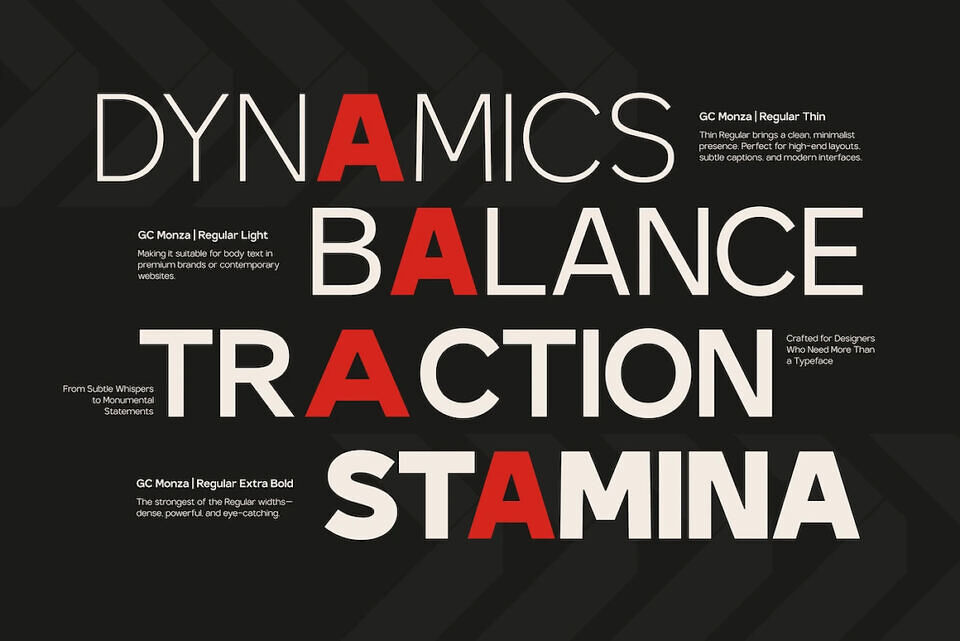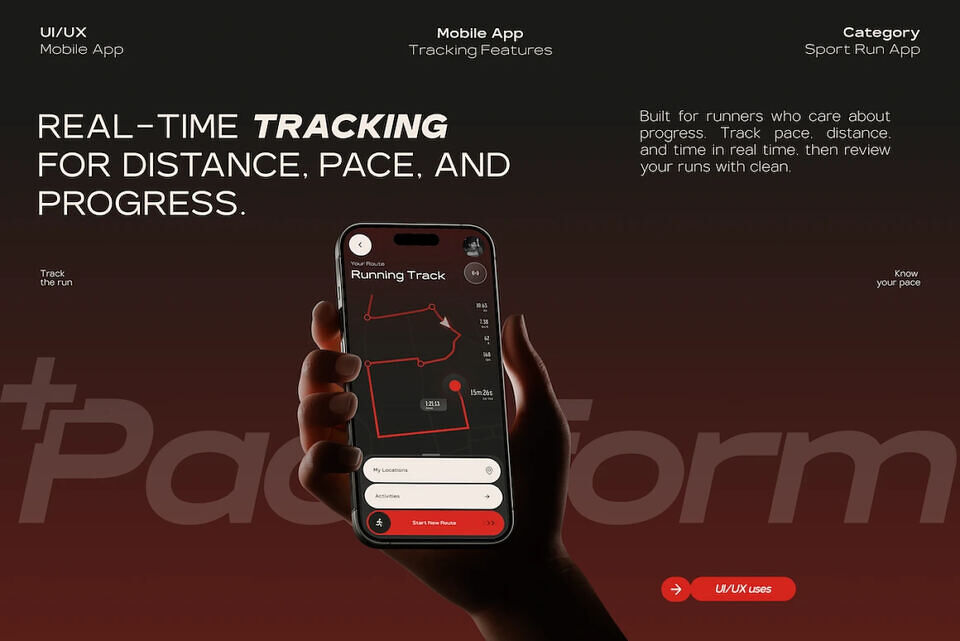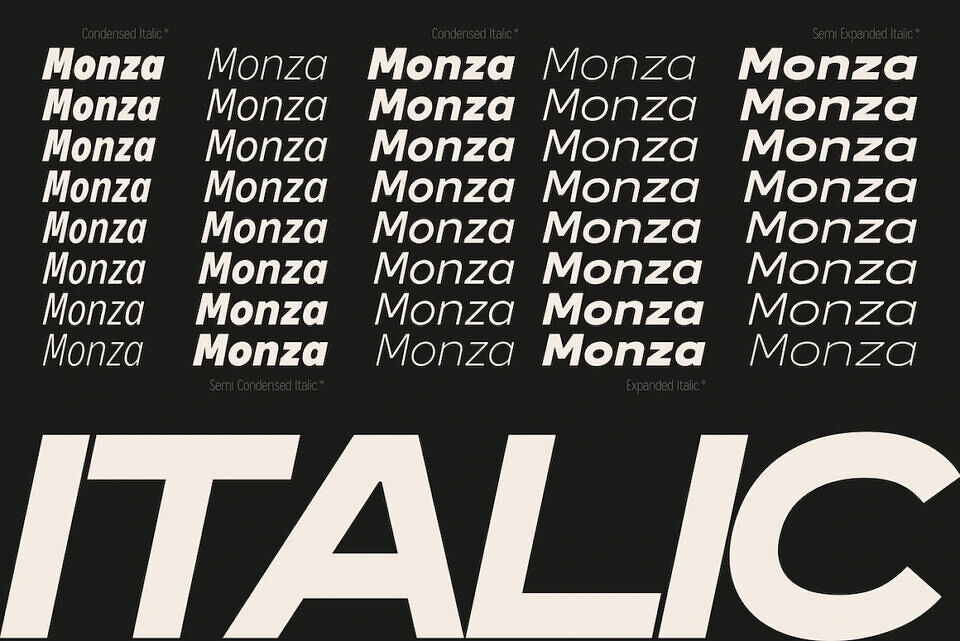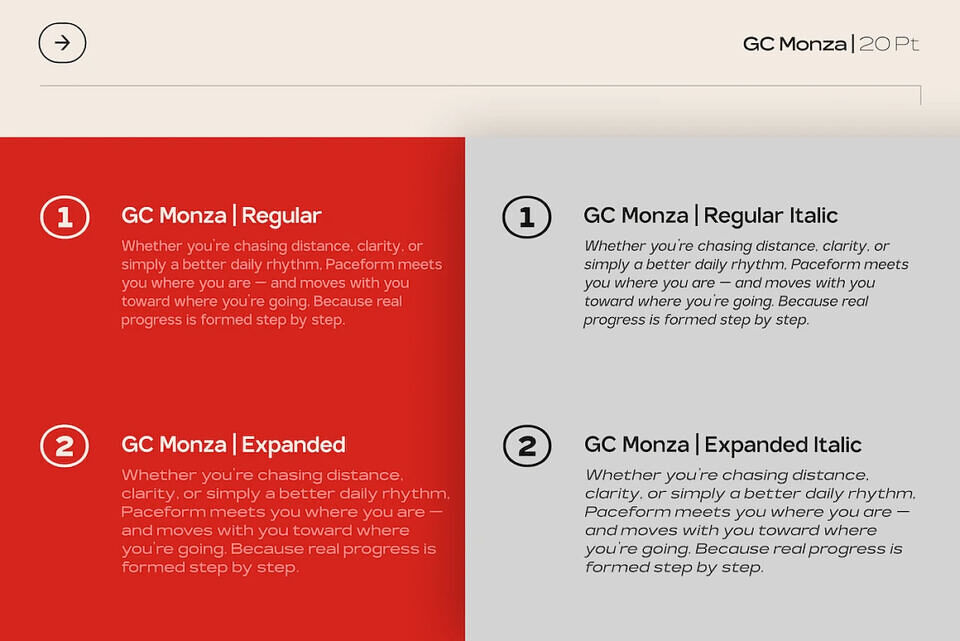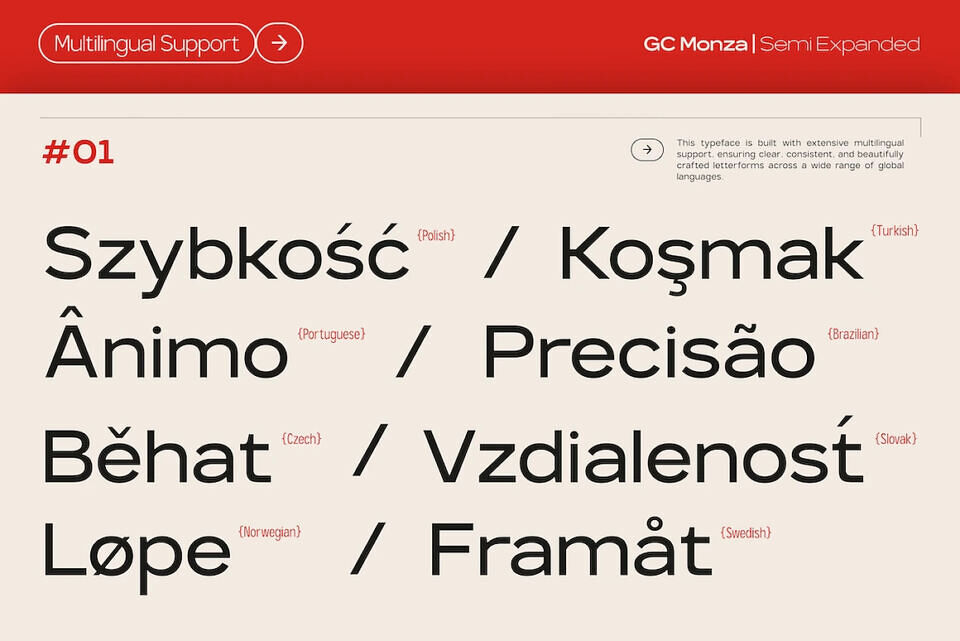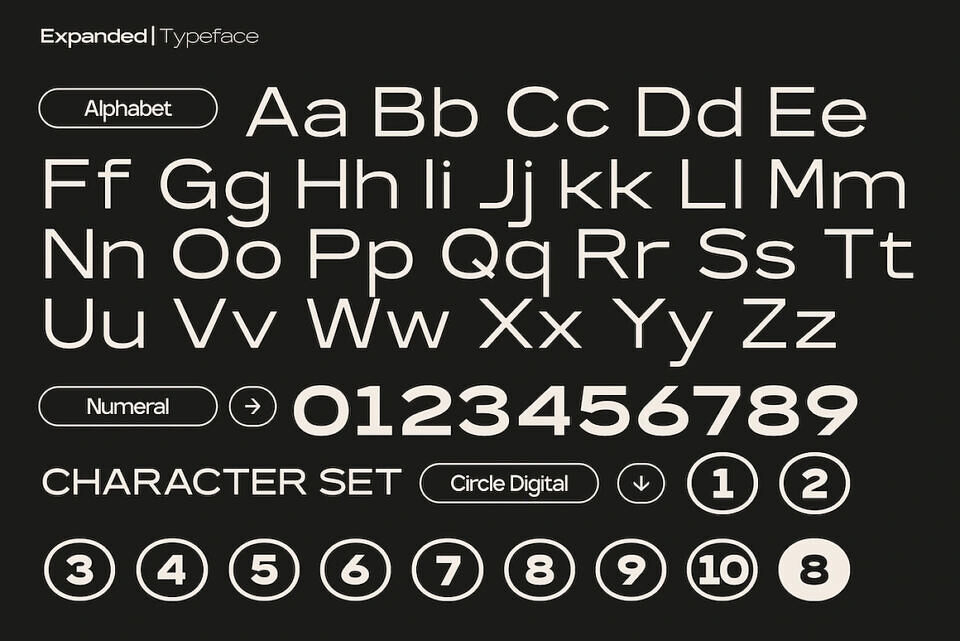
GC Monza is a contemporary sans serif typeface engineered for precision, versatility, and strong visual character. Designed with a refined structural system and modern detailing, it balances clarity with subtle complexity—creating a distinctive voice that feels both technical and expressive.
With clean construction, confident strokes, and carefully calculated proportions, GC Monza delivers exceptional readability across branding, editorial design, corporate identity, packaging, UI systems, and digital interfaces. Its modern personality makes it ideal for projects that demand structure, sophistication, and dynamic flexibility.
GC Monza is built as a complete and comprehensive type family (80 styles), offering an extensive width system to support everything from compact layouts to bold, spacious compositions.